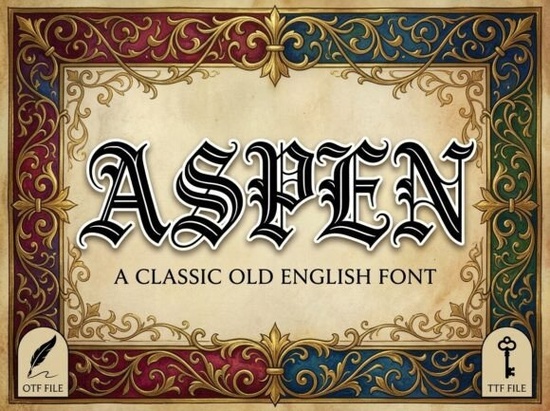
If you're working on a project that calls for gravitas, tradition, or a touch of gothic elegance, the Aspen Font might be exactly what your design needs. This Old English–style blackletter typeface blends historical authenticity with clean digital execution, making it surprisingly versatile for modern creators from indie authors designing fantasy book covers to small distilleries crafting premium spirit labels.
Unlike overly ornate or hard-to-read blackletter fonts, Aspen balances sharp vertical strokes with flared terminals that echo medieval manuscript calligraphy without sacrificing legibility at larger sizes. That makes it ideal for display use where you want visual weight and character, but still need your audience to actually read the words.
What kinds of projects work best with Aspen?
Because of its commanding presence and scholarly aura, Aspen shines in contexts where authority, heritage, or drama matter. Think:
- Luxury product packaging – especially for whiskey, rum, or craft beer labels where “aged” or “artisanal” is part of the brand story.
- Fantasy or historical fiction book covers – it pairs beautifully with illustrated scenes or embossed textures.
- Diplomas, certificates, or wedding invitations – when you want something more distinctive than Times New Roman but still formal.
- Social media headers for “dark academia” or gothic-themed content creators.
It’s worth noting that like most blackletter fonts, Aspen isn’t meant for body text or small print. Save it for headlines, logos, or short phrases where every letter can breathe.
How does Aspen compare to other display fonts?
If you’ve browsed Creative Fabrica’s display font collection, you’ve probably seen options like Victim, a bouncy, hand-drawn style great for kids’ products or quirky branding, or Cloak, which leans into mysterious, cinematic vibes with uneven ink traps and dramatic contrast. Aspen sits at the opposite end of the spectrum: structured, regal, and steeped in typographic history.
For projects needing bold simplicity instead of ornamentation, Hello Bold offers thick, friendly sans-serif energy perfect for modern merch or cheerful signage. And if grunge texture is your goal, Black Army delivers rugged, distressed lettering ideal for punk posters or urban apparel.
Each of these fonts serves a different mood. Aspen’s niche is clear: when your message demands dignity, legacy, or a whisper of candlelit parchment.
Is Aspen easy to use for non-designers?
- Use generous spacing (tracking) between letters to let those flared terminals stand out.
- Avoid all-caps unless your version includes proper uppercase glyphs many blackletter fonts are designed primarily for lowercase forms.
- Pair it with minimal, neutral supporting fonts (like a light sans-serif) so Aspen remains the focal point.
Print-on-demand sellers often find success using Aspen for vintage-style mugs, framed quotes, or embroidered patches especially when paired with muted colors like forest green, burgundy, or antique gold.
Where can I learn more about blackletter typography?
If you’re curious about the origins of fonts like Aspen, the blackletter script dates back to medieval Europe and was used in early printed books, including Gutenberg’s Bible. Understanding that context can help you use Aspen more thoughtfully not just as decoration, but as a nod to centuries of written tradition.
You can explore Aspen and similar styles directly on Creative Fabrica: Aspen Font, Victim Font, Cloak Font, Hello Bold Font, and Black Army Font.
- Is my project calling for historical weight or dramatic flair?
- Will the text be large enough to showcase the details?
- Am I pairing it with complementary, non-competing typefaces?
- Does my audience associate this style with prestige or with something else entirely? (Context matters!)
If the answer to most of these is yes, Aspen could add just the right amount of timeless authority to your next creative venture.